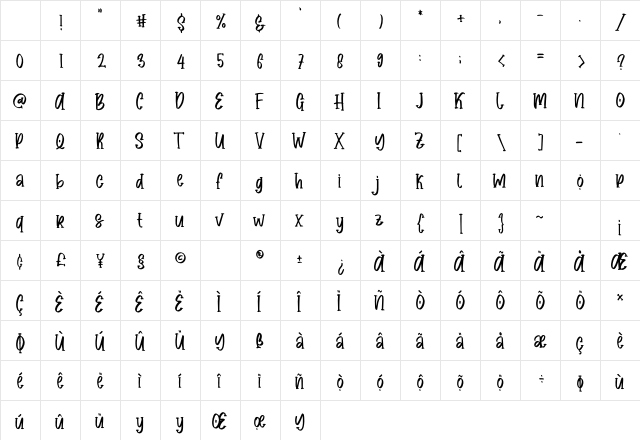
Minnimallisstic Font is a composed and adaptable typeface that performs quietly and consistently across a wide range of design contexts.
Pro Tip: Use Minnimallisstic Font in both headline and body roles to test its range before committing to a single application.